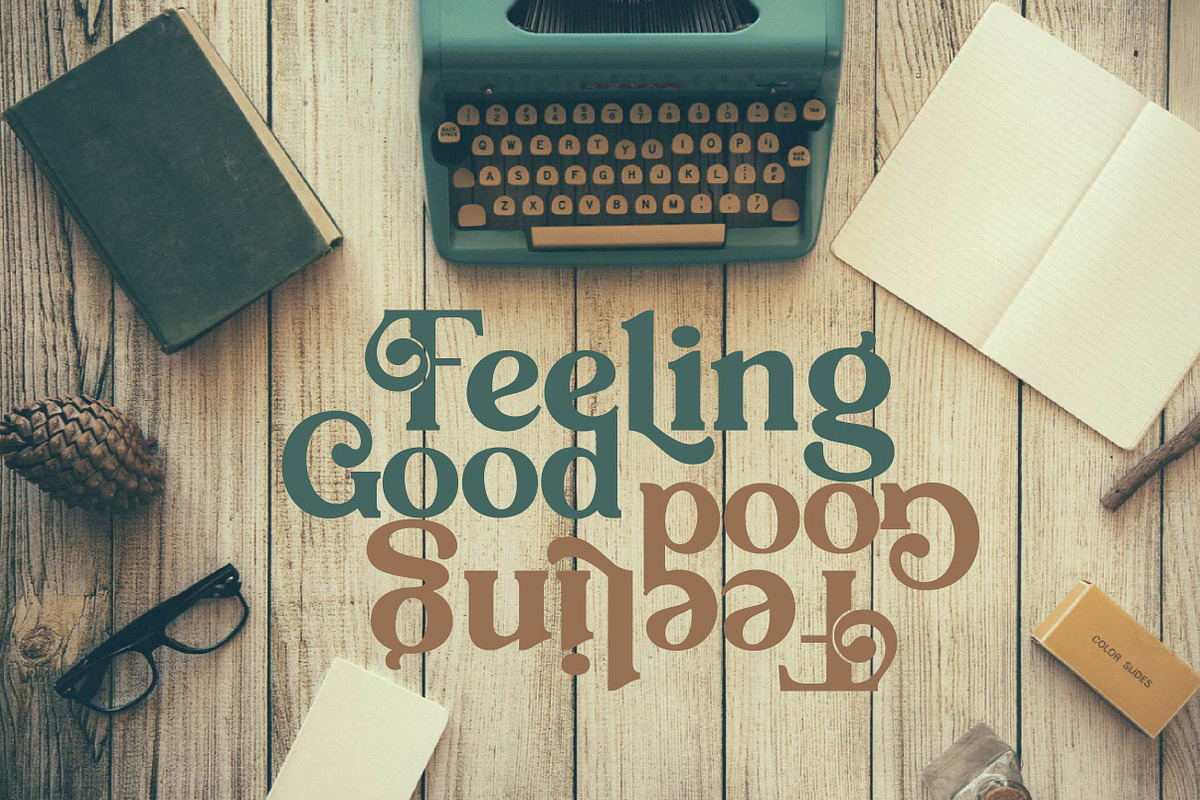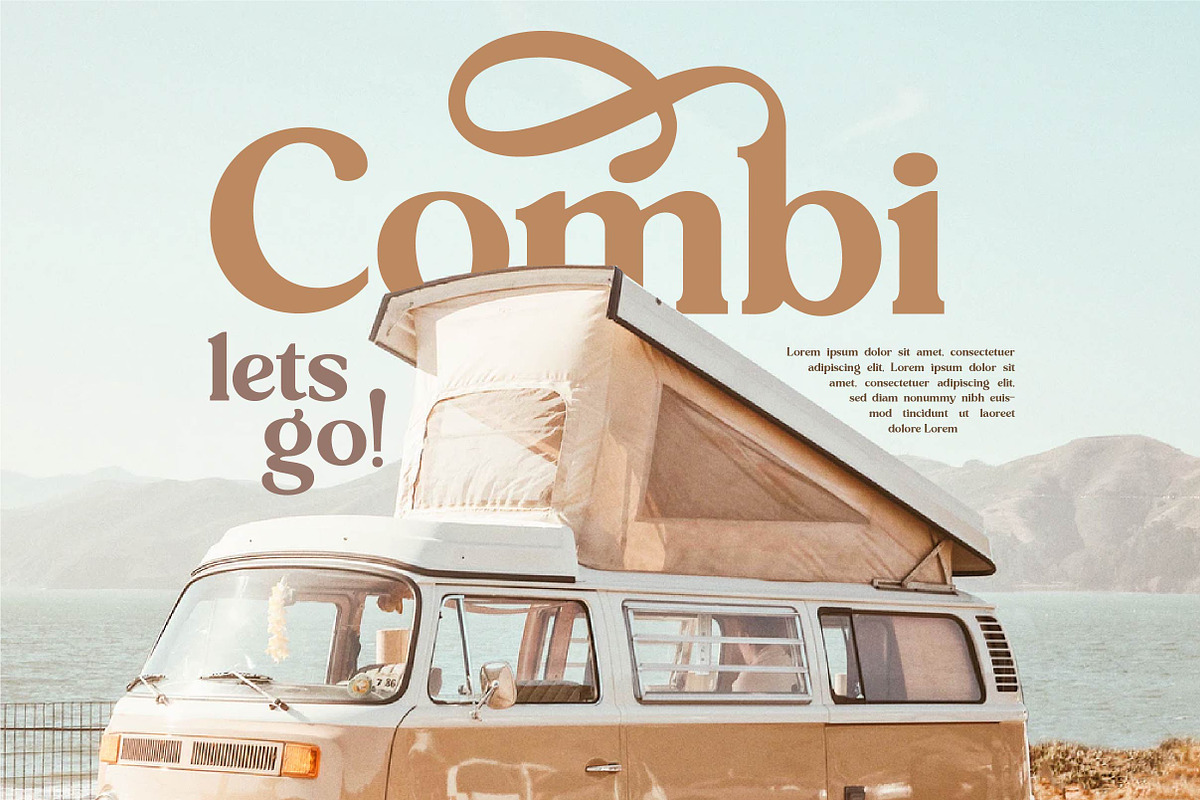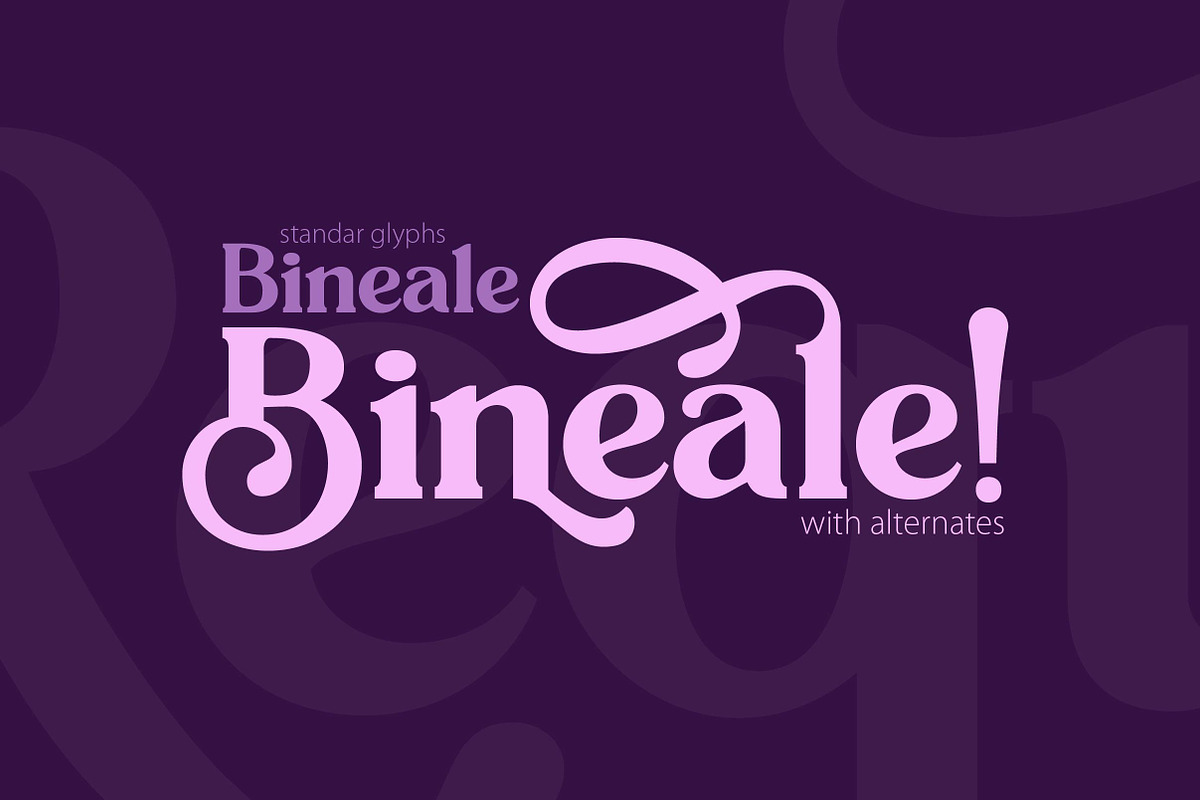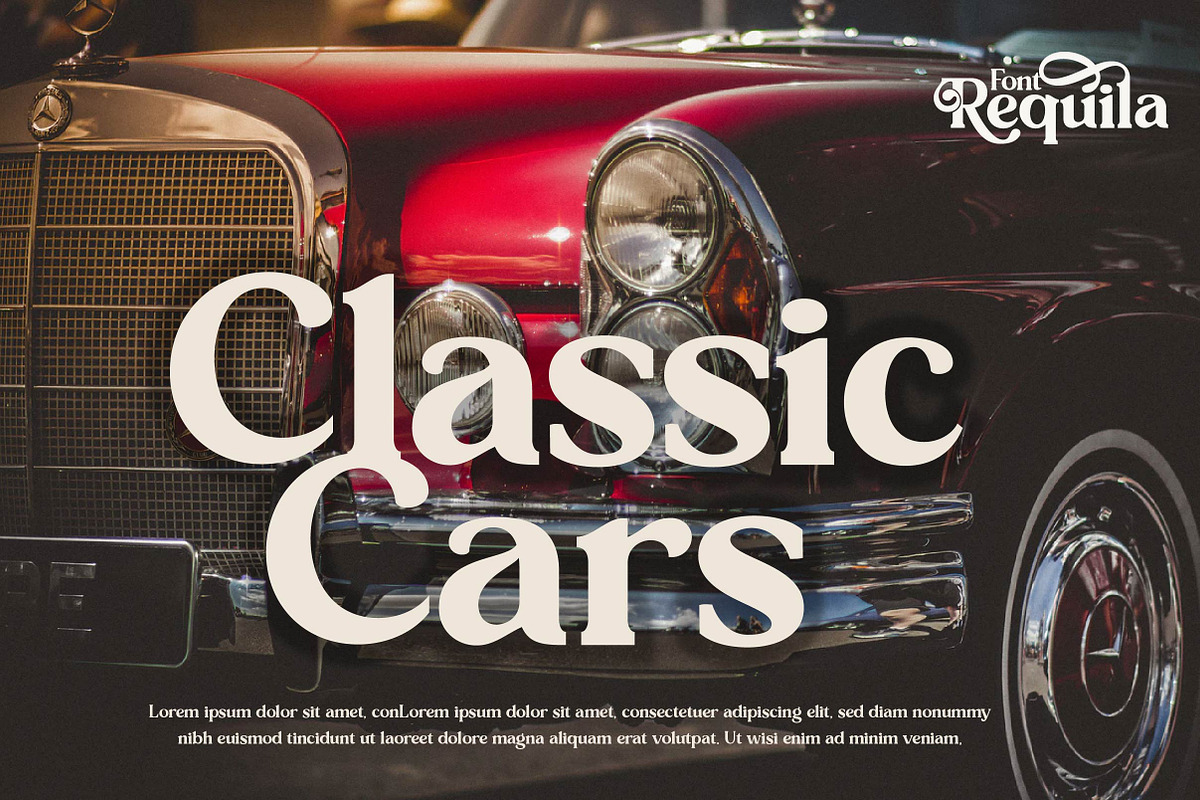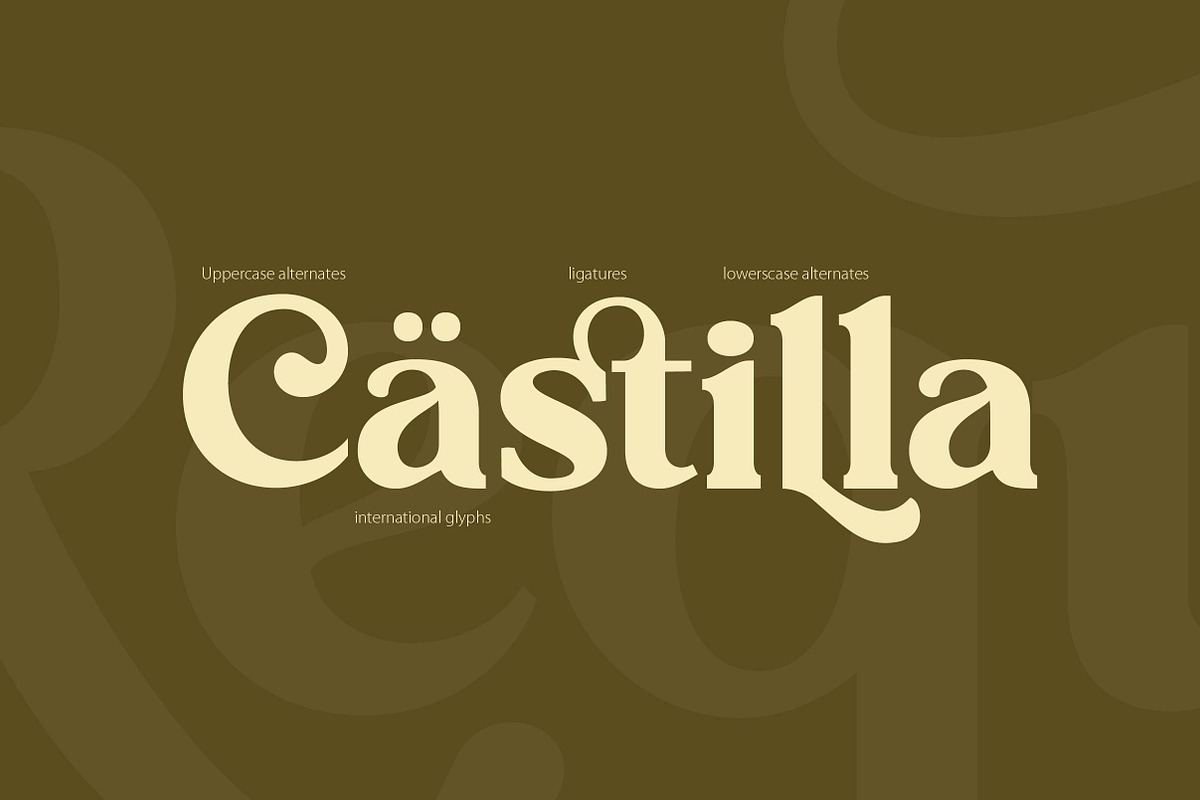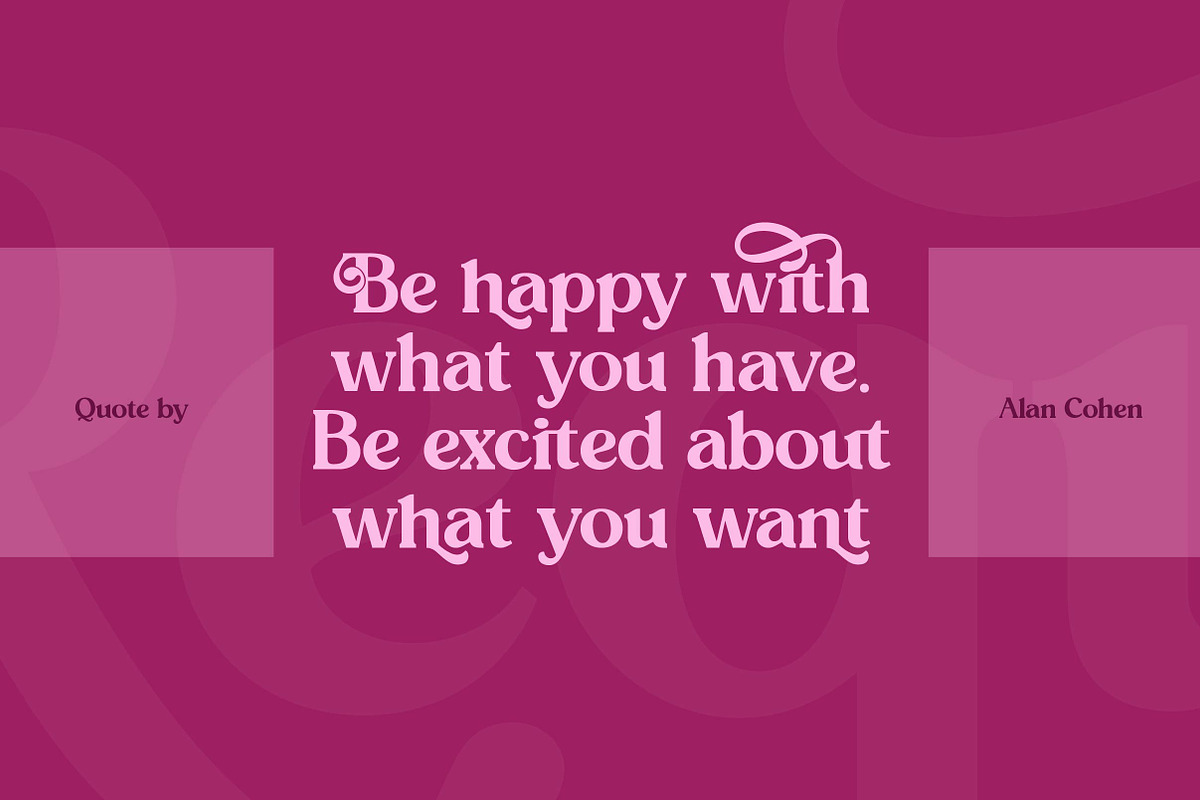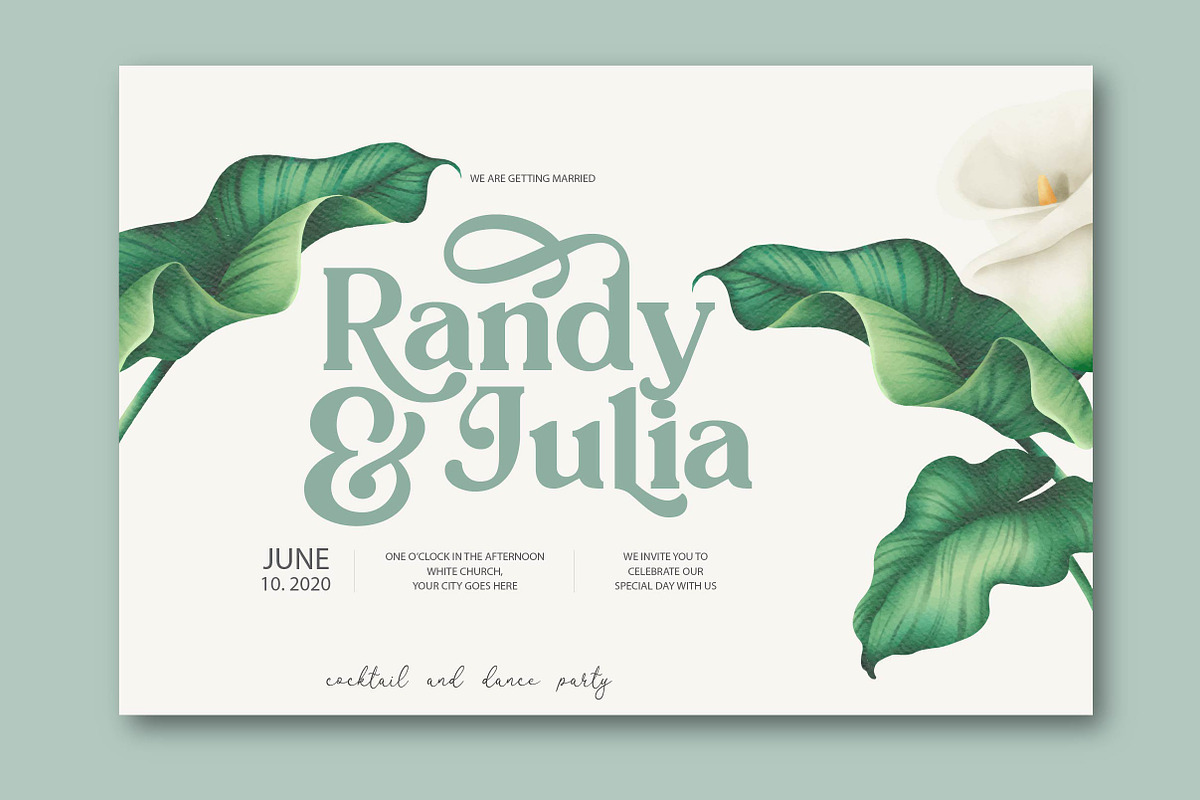
REQUILA - Vintage Font
Requila - Vintage Font
Requila - Vintage Font Serif This Font will look gorgeous on all your designs, invitation, book, branding materials, logo's, t-shirt, poster and all project design other.
Why REQUILA - Vintage Font is worth a look
REQUILA - Vintage Font by Olexstudio fits naturally into Branding, posters, packaging, typography.